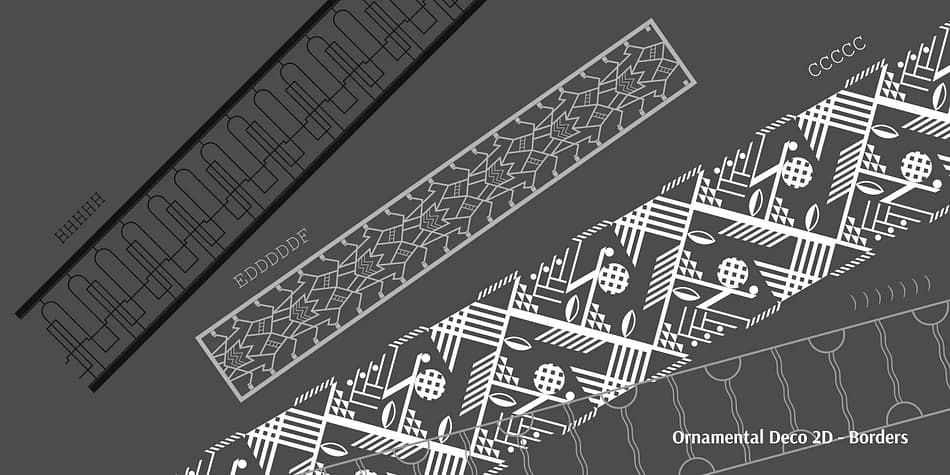
Ornamental Deco 2D by 2D Typo is an ornament collection inspired by the Art Deco architecture that defined 1920s Lviv. The glyphs are drawn directly from metalwork tracery and carved stone reliefs found on the city's historic buildings, capturing the precise geometric language and handcrafted quality of those original designs. Unlike generic decorative fonts that exist mainly for visual bulk, these ornaments carry genuine historical provenance, which means they feel contextually appropriate rather than arbitrarily applied.
You'll find this collection especially useful for luxury cosmetics packaging, art deco wedding invitation sets, vintage jewelry brand identities, and heritage hospitality signage. The ornaments work as refined accents alongside traditional typefaces, adding visual interest without overpowering text-heavy layouts. They're equally at home as decorative borders on wine labels, within architectural renderings, or scattered throughout cocktail menus and luxury restaurant branding where a touch of 1920s character matters.
The collection has enough visual variety across its glyph set to sustain interest in larger compositions without becoming visually repetitive. Each ornament performs equally well as a standalone accent element or integrated into cohesive border systems throughout a design. It's available on Creative Fabrica now, ready to bring authentic 1920s architectural detail and historical grounding to your luxury packaging, branding, editorial layouts, and heritage hospitality design work.
Ornamental Deco 2D Font is a versatile dingbats font that works for both headings and body text. Pair it with a contrasting sans-serif or serif font to add visual interest and a clear distinction between titles and body copy.
Ornamental Deco 2D Font